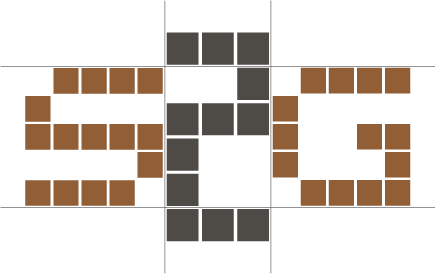
Font name: | Snap 2 Grid |
Author: | Type Generator |
Note by Type Generator | |
The idea of designing typefaces is to enhance how a message is communicated. The idea for Snap 2 Grid was to use simple square shapes on a square grid.It is a visualisation of a chocolate typeface designed for brand identity and advertising but also to bring appeal to the design process. The objective was to simplify the process of type design down to almost child-like building blocks yet keeping the technical appearance of a grid. Experimentation can be very important in the development of ideas. Sketching, observing and building 2D and 3D forms can help the design process along. Snap 2 Grid begun with cardboard blocks with magnets attached that could stick to a refridgerator. This brings back ideas of baby building blocks and early learning and has lead to the modular letter shapes of the Snap 2 Grid display Typeface. |